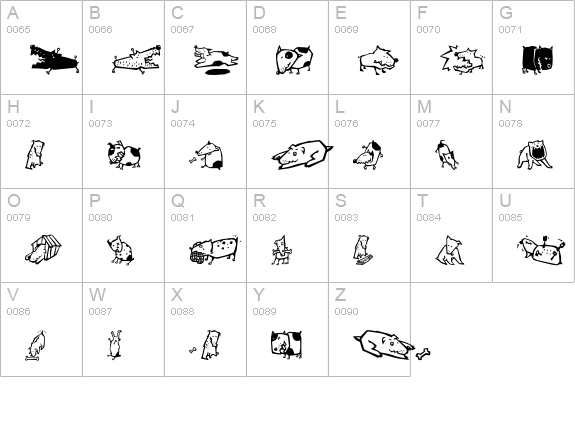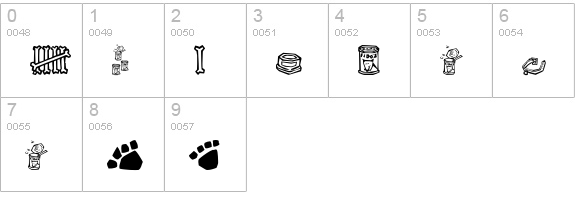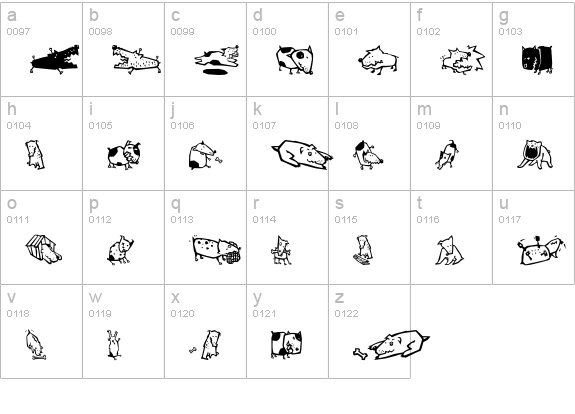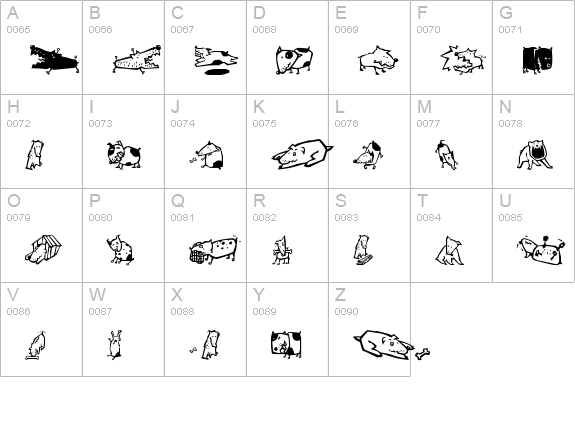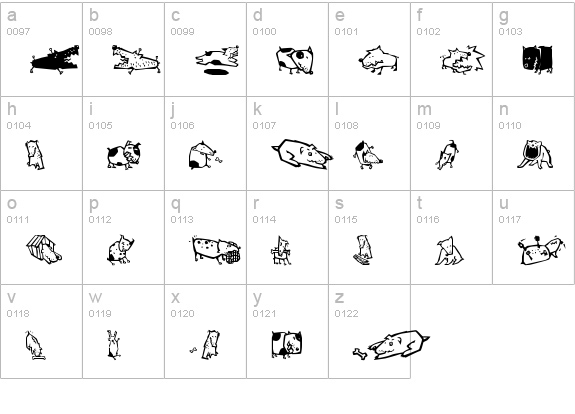
QuadruPetsEF-Dogs Font Details
Introducing QuadruPetsEF-Dogs font, a delightful and charming typeface that will bring a playful touch to your designs. This font is perfect for any project that needs a touch of whimsy and a dash of canine cheerfulness. With its unique and eye-catching letterforms, QuadruPetsEF-Dogs font is sure to capture the attention of your audience. Each character is lovingly crafted to resemble the adorable and lovable features of our four-legged friends. From the wagging tails to the perky ears, this font exudes a sense of joy and warmth. But what sets QuadruPetsEF-Dogs font apart from the rest is that it is completely free. Yes, you read that right! This font is freely available to download at FontsMarket.com. Now you can add a touch of doggy delight to your designs without breaking the bank. Whether you're designing posters for a pet adoption event, creating a whimsical logo for a pet store, or simply want to add some doggy charm to your personal projects, QuadruPetsEF-Dogs font is the perfect choice. Its versatility and playful nature make it suitable for a wide range of applications. So why wait? Download QuadruPetsEF-Dogs font today and let the doggone cuteness take center stage in your designs. Whether you're a professional designer or a dog lover looking to add some flair to your creations, this font is sure to bring a smile to your face and warmth to your heart. Get it now, freely available at FontsMarket.com!